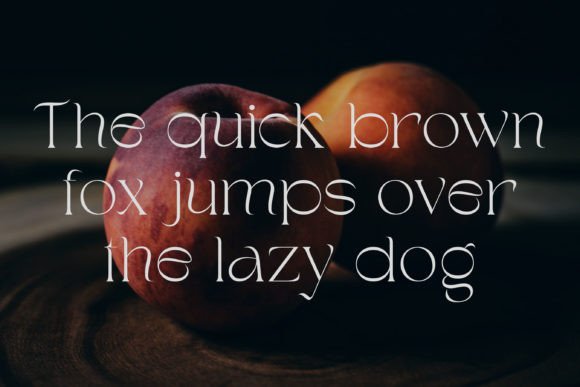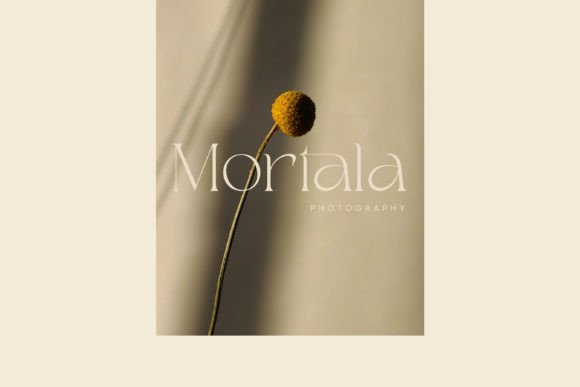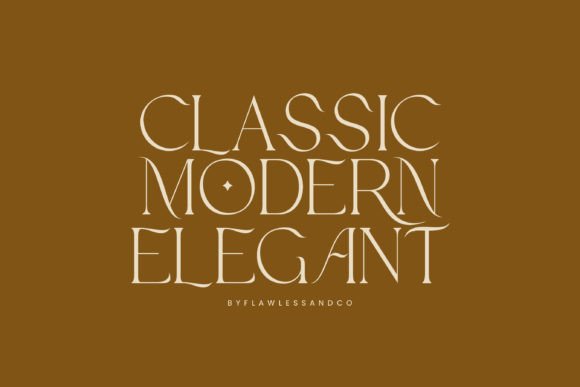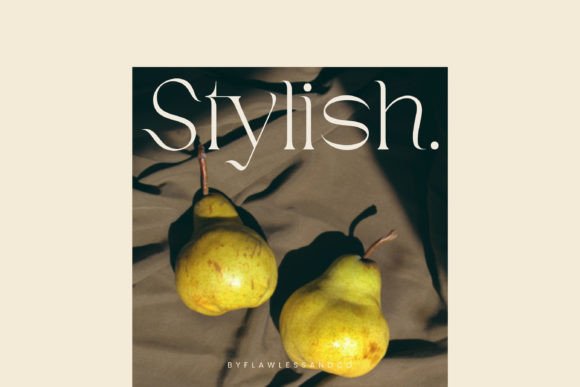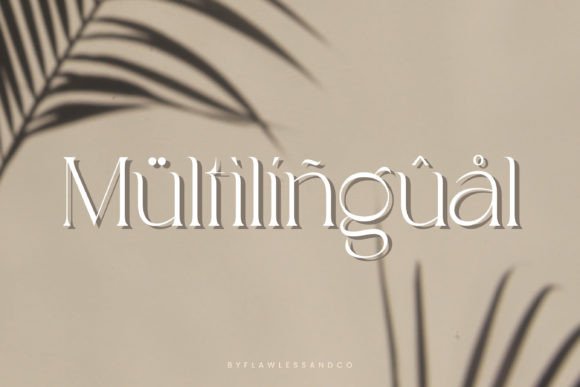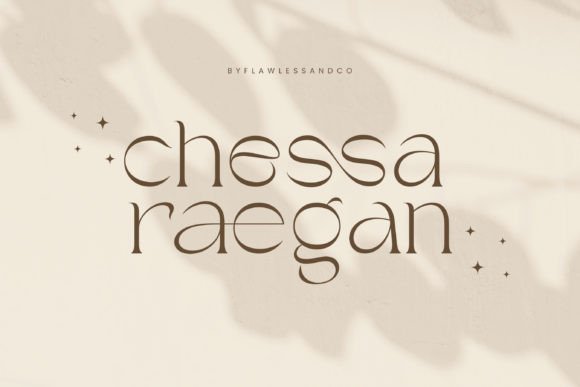
Introducing Chestra Font: Elevate Your Designs with Elegance and Sophistication
In the world of typography, a font can make or break a design. For designers and crafters looking for a modern serif typeface that exudes elegance and sophistication, look no further than Chestra Font. This versatile font is perfect for a wide range of applications, from branding materials and t-shirts to logos, posters, photography, quotes, and more.
What is Chestra Font?
Chestra Font is a modern serif typeface that boasts a unique blend of classic and contemporary elements. Its distinctive feature is the connection of some letters, which adds a touch of fluidity and dynamism to any design. This elegant font type is ideal for creating stunning display pieces, such as wedding invitation cards, event flyers, and other visual materials that require a level of sophistication.
Key Features of Chestra Font
- Modern Serif Typeface: Chestra Font features a sleek and modern serif design that adds a touch of elegance to any project.
- Connected Letters: The font’s unique connected letters create a sense of fluidity and continuity, making it perfect for designs that require a high level of visual flow.
- Versatile: Chestra Font can be used for a wide range of applications, from branding materials and t-shirts to logos, posters, and more.
- Elegant: The font’s sophisticated design makes it ideal for creating stunning display pieces, such as wedding invitation cards and event flyers.
Use Cases for Chestra Font
Chestra Font is a versatile font that can be used for a variety of design projects. Here are some use cases to get you started:
- Branding Materials: Use Chestra Font to create stunning logos, business cards, and letterheads that exude elegance and sophistication.
- T-Shirts and Apparel: The font’s modern serif design and connected letters make it perfect for creating stylish and eye-catching t-shirt designs.
- Logos and Icons: Chestra Font can be used to create unique and memorable logos and icons that add a touch of elegance to any brand.
- Posters and Flyers: The font’s bold and sophisticated design makes it ideal for creating stunning posters and flyers that grab attention.
- Photography and Quotes: Use Chestra Font to add a touch of elegance to your photography and quote designs, making them perfect for social media and blogs.
- Wedding Invitation Cards: The font’s sophisticated design makes it ideal for creating stunning wedding invitation cards and other event materials.
Why Choose Chestra Font?
With so many fonts available, why choose Chestra Font? Here are just a few reasons:
- Unique Design: Chestra Font boasts a unique and distinctive design that sets it apart from other fonts.
- High-Quality: The font is crafted with high-quality and attention to detail, ensuring that it looks great in any design.
- Versatile: Chestra Font can be used for a wide range of applications, making it a great addition to any designer’s toolkit.
- Elegant: The font’s sophisticated design makes it perfect for creating stunning display pieces that exude elegance and sophistication.